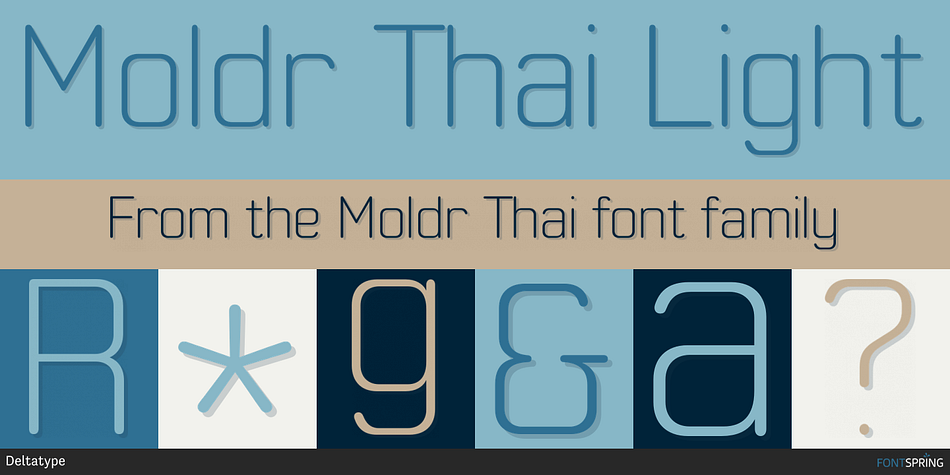
Moldr Thai Light
Moldr Thai is a sans serif font family. This typeface has nine styles and was published by Deltatype.
Moldr Thai, a san-serif with modular grid structure with Thai script, inspired from a handmade letter to industrial machine mold.  Moldr comes with 9 weights in the complete family.  Moldr Thai supports many languages with standard Adobe Lain 4 glyphs, world-ready and mark2mark support, especially Thai script.